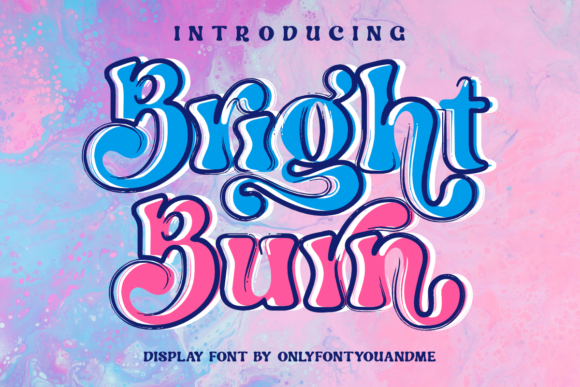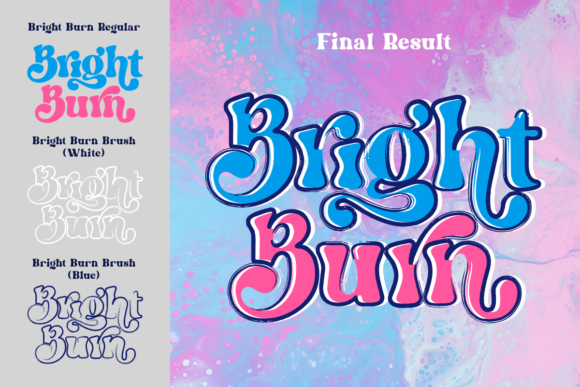
Bright Burn Font
Bright Burn is cool, retro and fun display font. This font is PUA encoded which means you can access all of the glyphs and alternates with ease! It will look great on headlines, magazines, logos, branding and so much more!